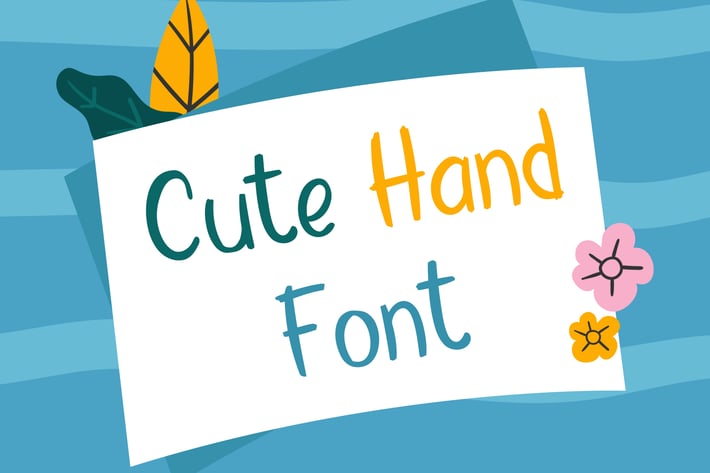
Cute Hand Font
The Cute Hand Font is perfect for invitations, weddings, greeting cards, parties, and more. It is easy to use and can be used in a variety of ways, including as a headline font, logo font, or branding font. This font is also available for commercial and personal use, making it a great option for both businesses and individuals.